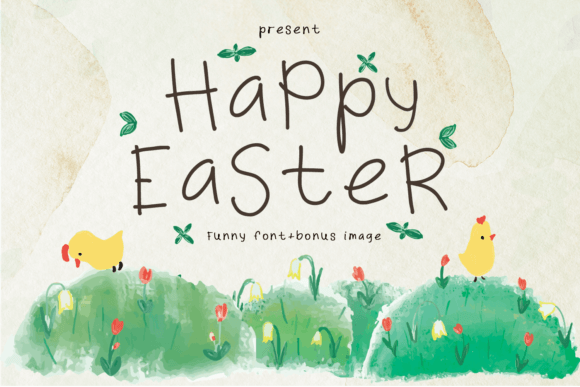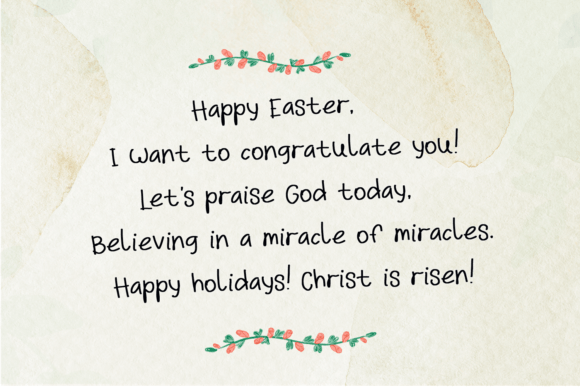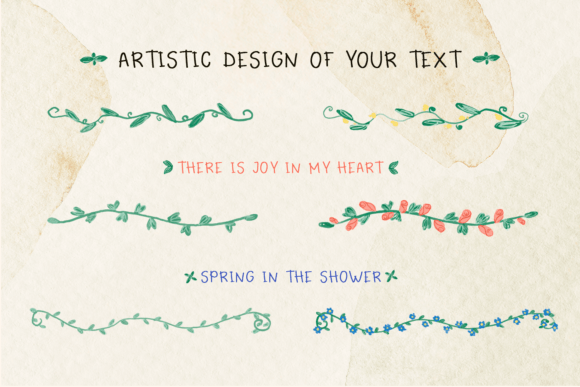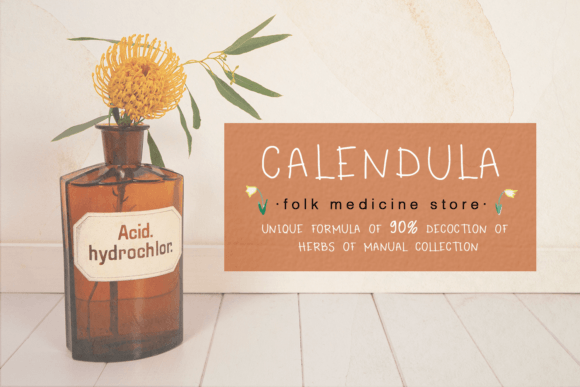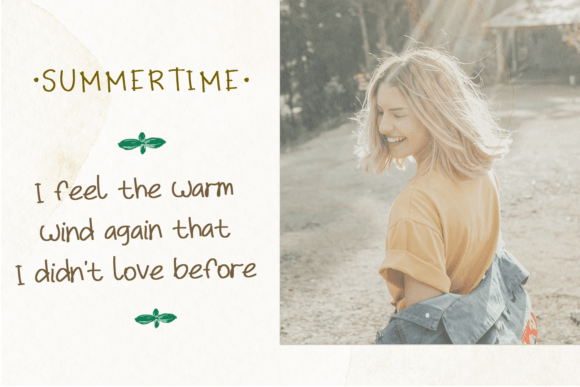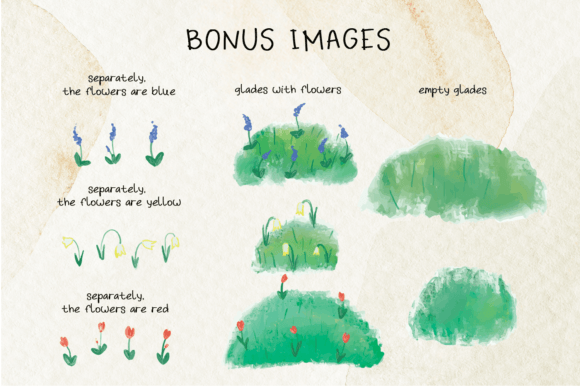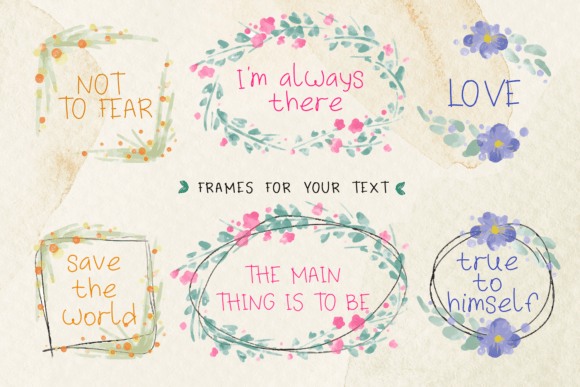
Bringing Joy to Your Designs: The Magic of Happy Easter Font
Do you remember that moment when you stumbled upon the perfect font for a project, and everything just clicked? It’s like finding a hidden treasure, isn’t it? For designers, it’s a moment of pure excitement and creativity. And for those who are about to discover the Happy Easter Font, we’re about to share that magic with you.
The Happy Easter Font is a delightful, handwritten font that adds a touch of whimsy and playfulness to any design. Its natural, unique style makes it a versatile choice for a wide range of projects, from Easter-themed graphics to everyday designs. Whether you’re a seasoned designer or a beginner, this font is sure to bring a smile to your face and inspire your creativity.
Key Features of “Happy Easter Font”
- Font Styles: The font includes various Easter-themed styles, such as Easter eggs, bunnies, and spring flowers, which can be used to create festive and colorful designs.
- Character Set: Includes uppercase and lowercase letters, numbers, and punctuation marks, as well as special characters and symbols.
- Color Options: The font includes various color options, allowing designers to customize the look and feel of their designs to suit their needs.
- Multi-Lingual Support: The font supports multiple languages, making it a versatile option for designers working on international projects.
Happy Easter Font Review
I had the chance to work with the “Happy Easter Font” and here’s my honest review:
- Fun and festive: The font is perfect for Easter-themed projects and adds a playful touch to any design.
- High-quality vector files: The font comes with high-resolution vector files, making it easy to use in various design applications.
- Good for small text: The font performs well with small text sizes, making it suitable for titles, headings, and other small text elements.
- Limited character set: The font only includes uppercase letters, numbers, and a few special characters, which can be limiting for more complex designs.
- Not ideal for body text: The font is best suited for titles and headings, as it can be difficult to read in large blocks of body text.
- No italic or bold styles: The font only comes in a standard style, which can make it harder to create emphasis or hierarchy in designs.
The “Happy Easter Font” is a fun and festive addition to any Easter-themed design. While it has some limitations, it’s perfect for small projects and titles. If you’re looking for a playful font to add some personality to your designs, this font is worth checking out.
The Happy Easter Font is ideal for creating festive and playful designs for Easter-themed projects. Some common use cases include:
- Creating Easter card designs.
- Designing Easter egg decorations.
- Developing Easter-themed social media graphics.
Remember to experiment with different font sizes, colors, and combinations to get the most out of the Happy Easter Font.